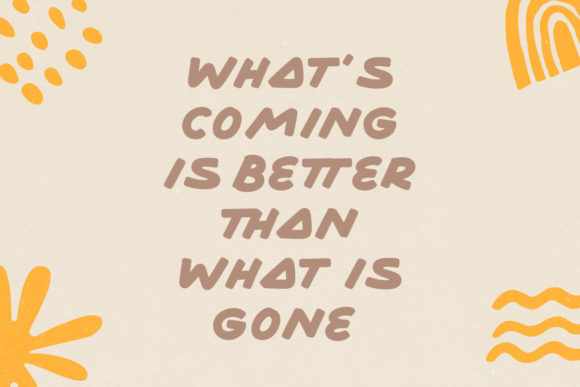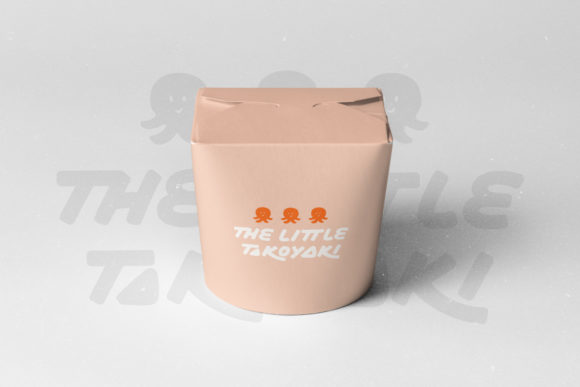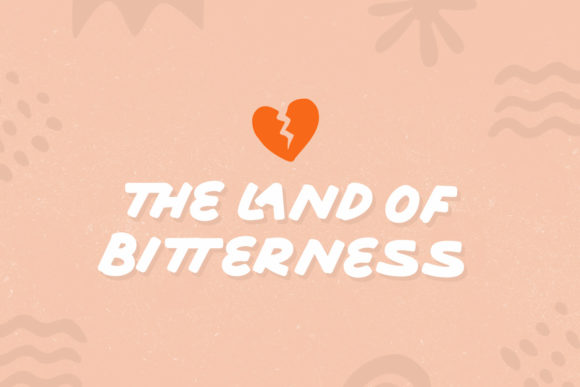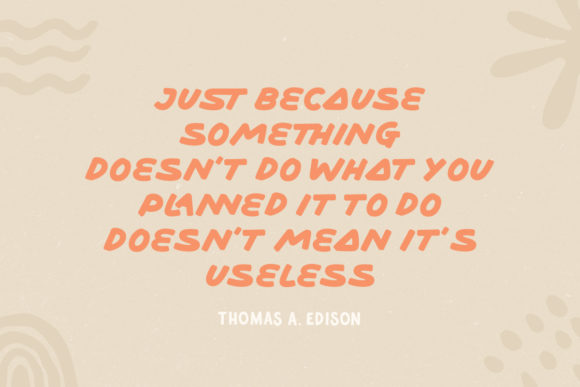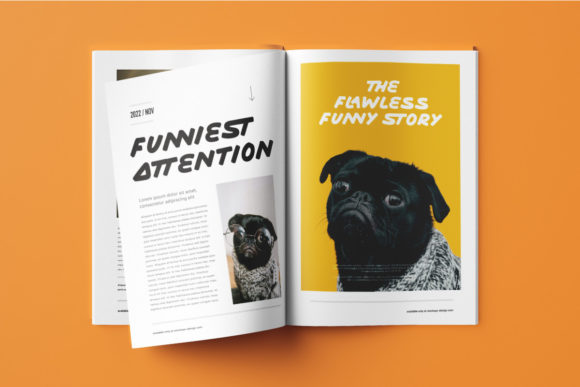
Introducing Arin Koln Font: The Ultimate Display Typeface for Fun and Playful Designs
Are you a designer or crafter looking for a font that can add a touch of fun and playfulness to your projects? Look no further than Arin Koln Font! This display typeface is perfect for creating eye-catching designs that are sure to capture the attention of your audience. In this article, we’ll take a closer look at Arin Koln Font, its features, and how you can use it to elevate your designs.
What is Arin Koln Font?
Arin Koln Font is a display typeface that boasts a fun and playful look, making it ideal for a wide range of design projects. Its unique and quirky style is sure to add a touch of personality to any design, from storybooks and children’s projects to logos, labels, and packaging.
Key Features of Arin Koln Font
So, what makes Arin Koln Font so special? Here are some of its key features:
- Fun and playful look: Arin Koln Font has a unique and quirky style that is sure to add a touch of personality to any design.
- Display typeface: This font is perfect for headlines, titles, and short paragraphs of text.
- Versatile: Arin Koln Font can be used for a wide range of design projects, from storybooks and children’s projects to logos, labels, and packaging.
- Easy to read: Despite its playful look, Arin Koln Font is easy to read, making it perfect for body text as well.
Use Cases for Arin Koln Font
So, how can you use Arin Koln Font in your designs? Here are some use cases to get you started:
- Storybooks and children’s projects: Arin Koln Font is perfect for storybooks, children’s magazines, and other projects that require a fun and playful look.
- Logos and branding: This font can be used to create eye-catching logos and branding materials that are sure to stand out.
- Labels and packaging: Arin Koln Font is ideal for labels, packaging, and other materials that require a fun and playful look.
- Greeting and wedding cards: This font can be used to create beautiful and unique greeting and wedding cards.
- Advertising and marketing: Arin Koln Font can be used in advertising and marketing materials, such as flyers, brochures, and posters.
Tips for Using Arin Koln Font
Here are some tips for using Arin Koln Font in your designs:
- Use it sparingly: Arin Koln Font is a display typeface, so it’s best to use it sparingly to add emphasis to your design.
- Pair it with other fonts: This font can be paired with other fonts to create a unique and interesting look.
- Experiment with colors: Arin Koln Font looks great in a variety of colors, so don’t be afraid to experiment and find the perfect color for your design.
Arin Koln Font is a fun and playful display typeface that is perfect for a wide range of design projects. Its unique and quirky style is sure to add a touch of personality to any design, from storybooks and children’s projects to logos, labels, and packaging. With its versatility, ease of use, and range of use cases, Arin Koln Font is a great addition to any designer’s toolkit.